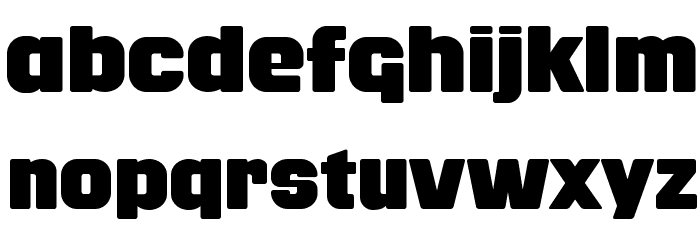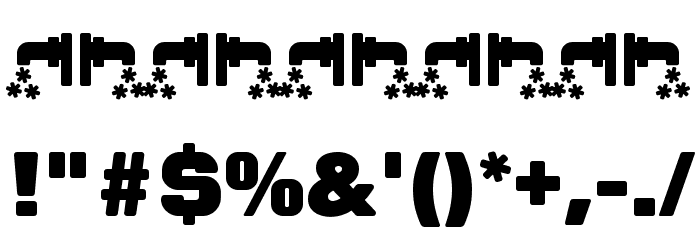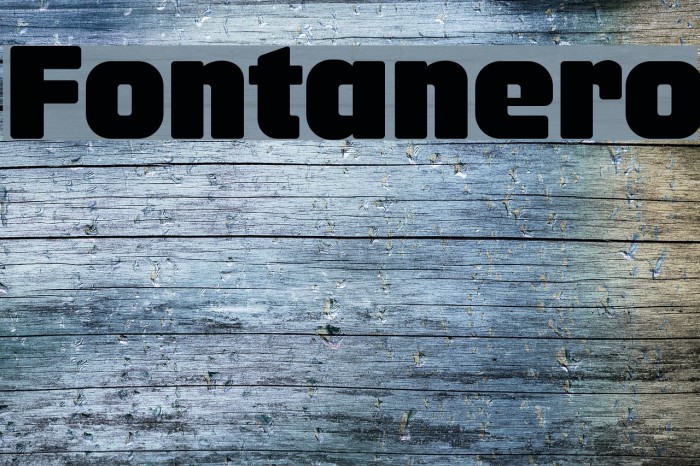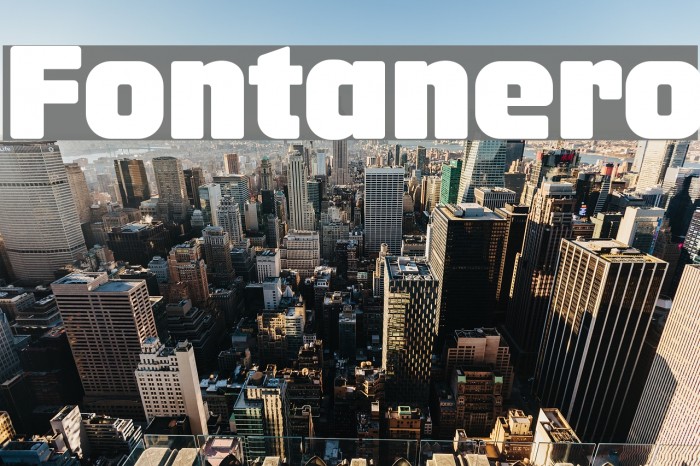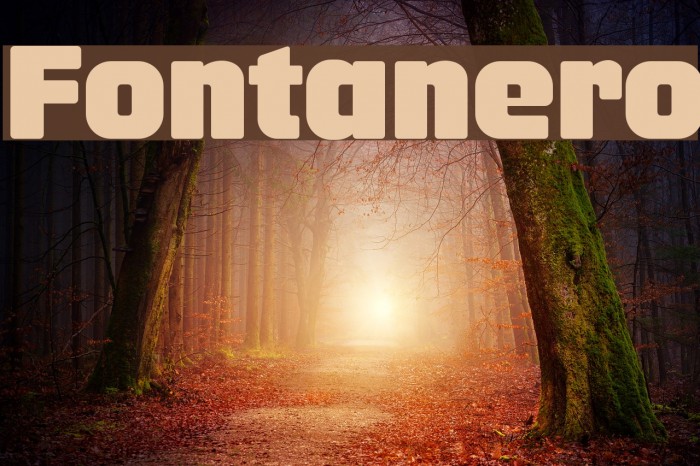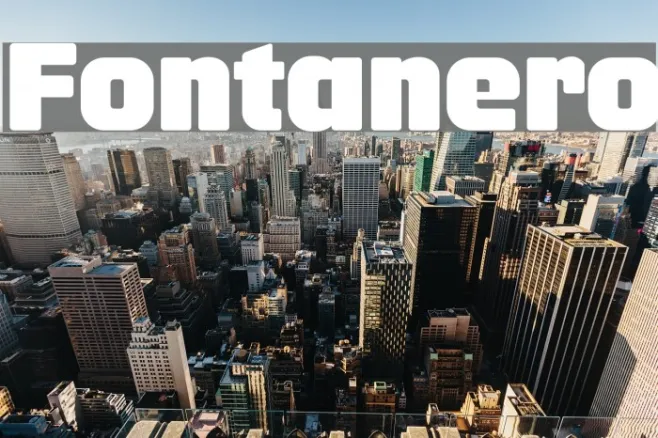
Fontanero Font
This font is a bold, geometric typeface with a strong presence. The characters are blocky and robust, featuring consistent stroke widths that give it a uniform and cohesive look. The uppercase and lowercase letters maintain a similar width, enhancing the font's bold appearance. The special characters and numbers are designed to match the overall style, ensuring a seamless integration in various design contexts. The font's solid structure makes it ideal for impactful headlines and logos, where clarity and strength are paramount.
A bold, geometric typeface with consistent stroke widths and a strong presence.
- Proposed Projects: Ideal for branding, posters, headlines, and logos where a bold statement is needed.